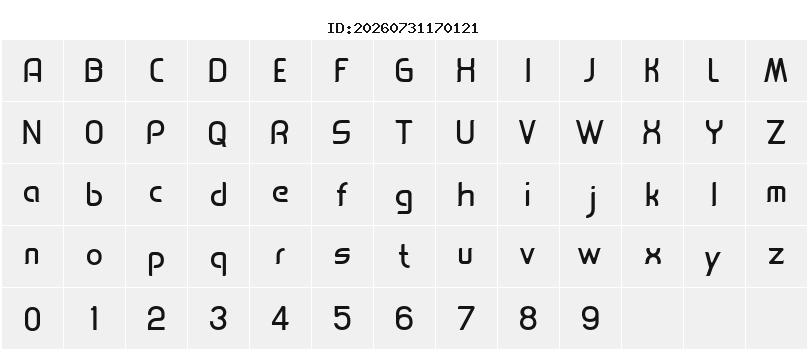
• Font Name: Leoscar Sans Serif
• Font Style: Sans Serif
• Designer: Leoscar
• Description: Font Designed & Developed by Faridul Haque, Special Thanks to Abu Kalam Shamsuddin sir. Department of Multimedia & Creative Technology (MCT), Daffodil International University (DIU). faridul.faisal@gmail.com https://dribbble.com/googling
About Leoscar Sans Serif.ttf
Leoscar Sans Serif.ttf is a modern, elegant sans-serif font designed for ultimate readability and visual harmony. Perfect for branding, headlines, web design, and print materials.